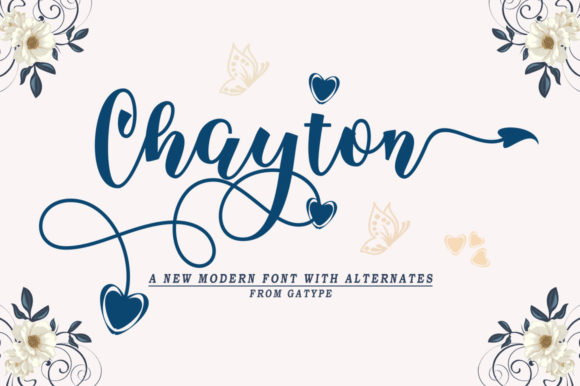
Unleash the allure of Chayton, a captivating script font that dances across your designs with elegance and charm. Meticulously crafted by the skilled hands of gatype, Chayton is a visual masterpiece that breathes life into your creative endeavors.
Immerse yourself in the world of Chayton, where letters flow like liquid poetry, each stroke imbued with artistry and grace. This font is not merely a collection of characters; it's an expression of creativity, a gateway to a realm of boundless imagination.
With Chayton, you hold the key to unlocking a universe of design possibilities. Let your imagination soar as you create logos that captivate, branding that enchants, and social media posts that ignite engagement. Chayton is the perfect companion for any project that demands a touch of sophistication and flair.
Effortlessly express your individuality with Chayton. Whether you're a seasoned designer or just starting your creative journey, this font will elevate your work to new heights. Its versatility knows no bounds, adapting seamlessly to a myriad of projects, from T-shirt designs that speak volumes to wedding invitations that exude elegance.
Chayton is more than just a font; it's an experience. Its PUA encoding grants you the freedom to explore a world of glyphs and swashes, each one a tiny work of art waiting to be discovered. Unleash your creativity and let Chayton guide you to design masterpieces that leave a lasting impression.
So, embark on this creative adventure with Chayton, the script font that will transform your designs into works of art. Let your imagination run wild and let Chayton be your muse. The possibilities are endless, and the beauty you'll create is immeasurable. Elevate your designs to new heights and let Chayton captivate the world with its undeniable charm.